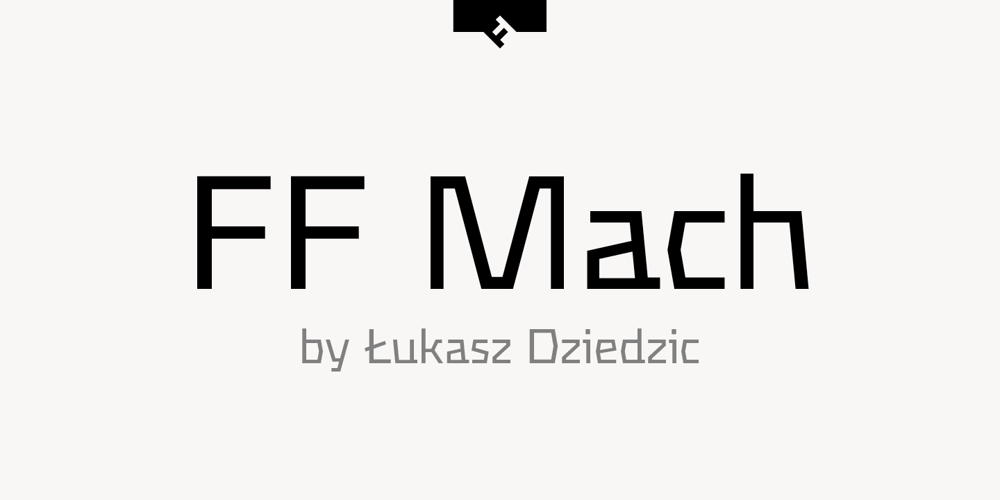
FF Mach Font Family was designed by Łukasz Dziedzic and published by FontFont. FF Mach contains 18 styles and family package options. Polish type designer Lukasz Dziedzic created this display and sans FontFont in 2009. The family has 18 weights, ranging from Thin to Black in Condensed, Normal, and Wide and is ideally suited for editorial and publishing, music and nightlife as well as poster and billboards. FF Mach provides advanced typographical support with features such as ligatures, case-sensitive forms, fractions, super- and subscript characters, and stylistic alternates. It comes with a complete range of figure set options – oldstyle and lining figures, each in tabular and proportional widths. As well as Latin-based languages, the typeface family also supports the Cyrillic writing system.